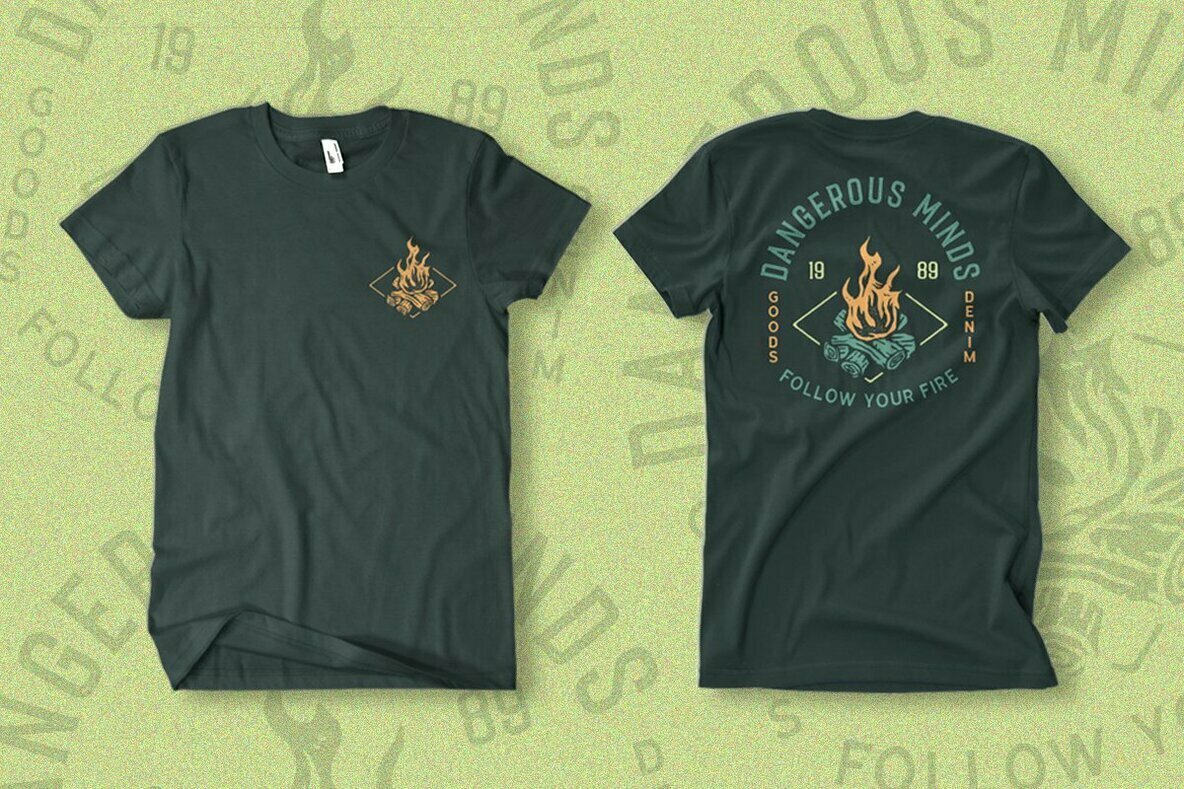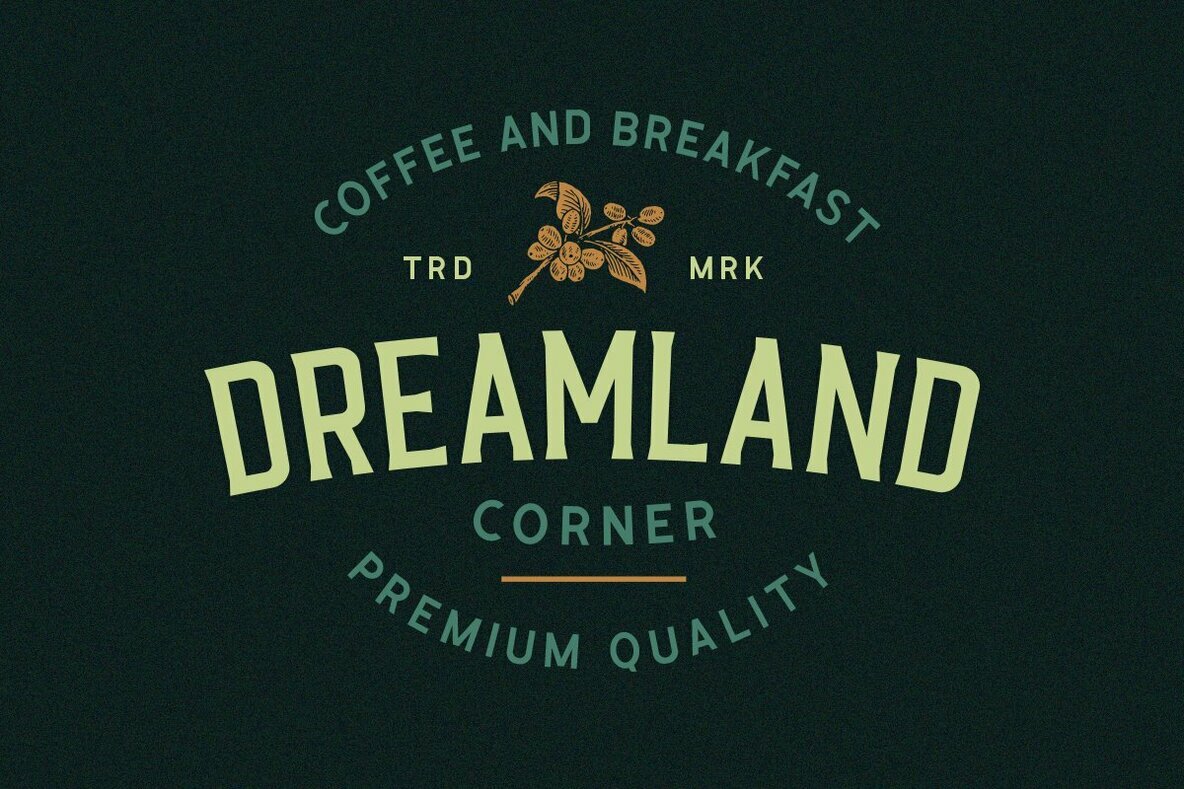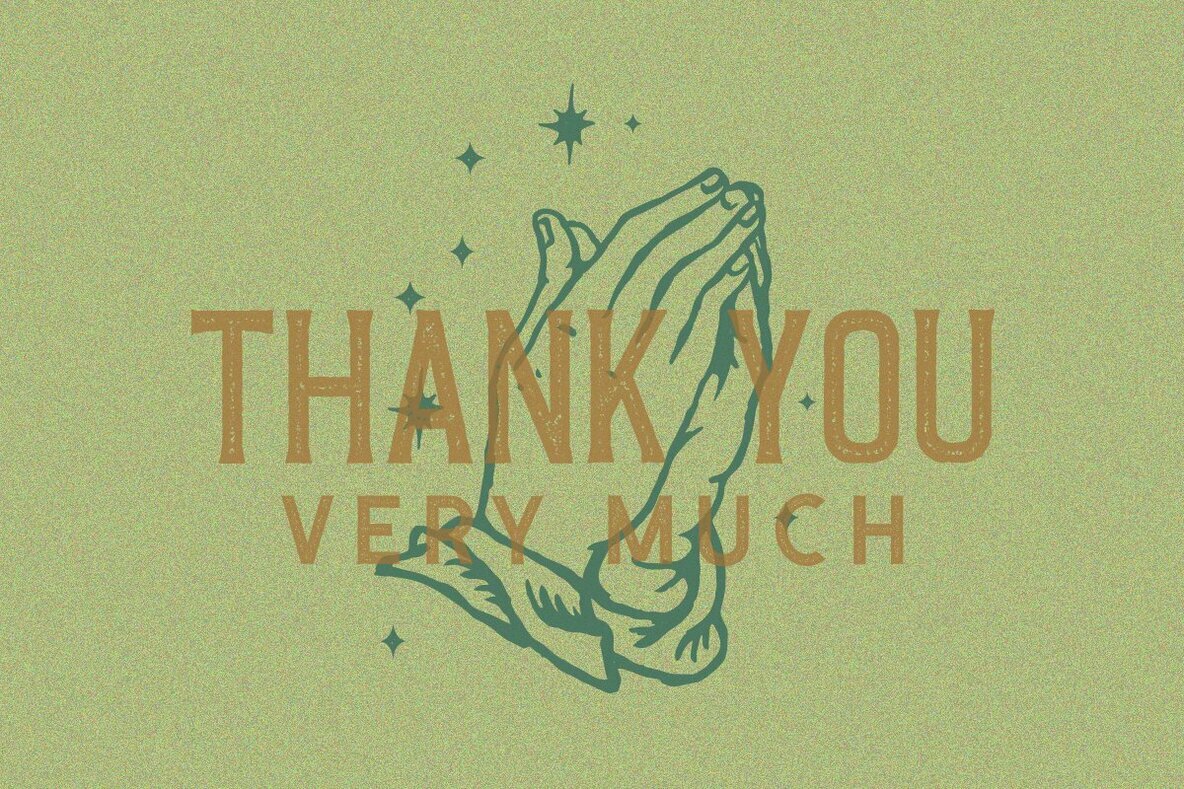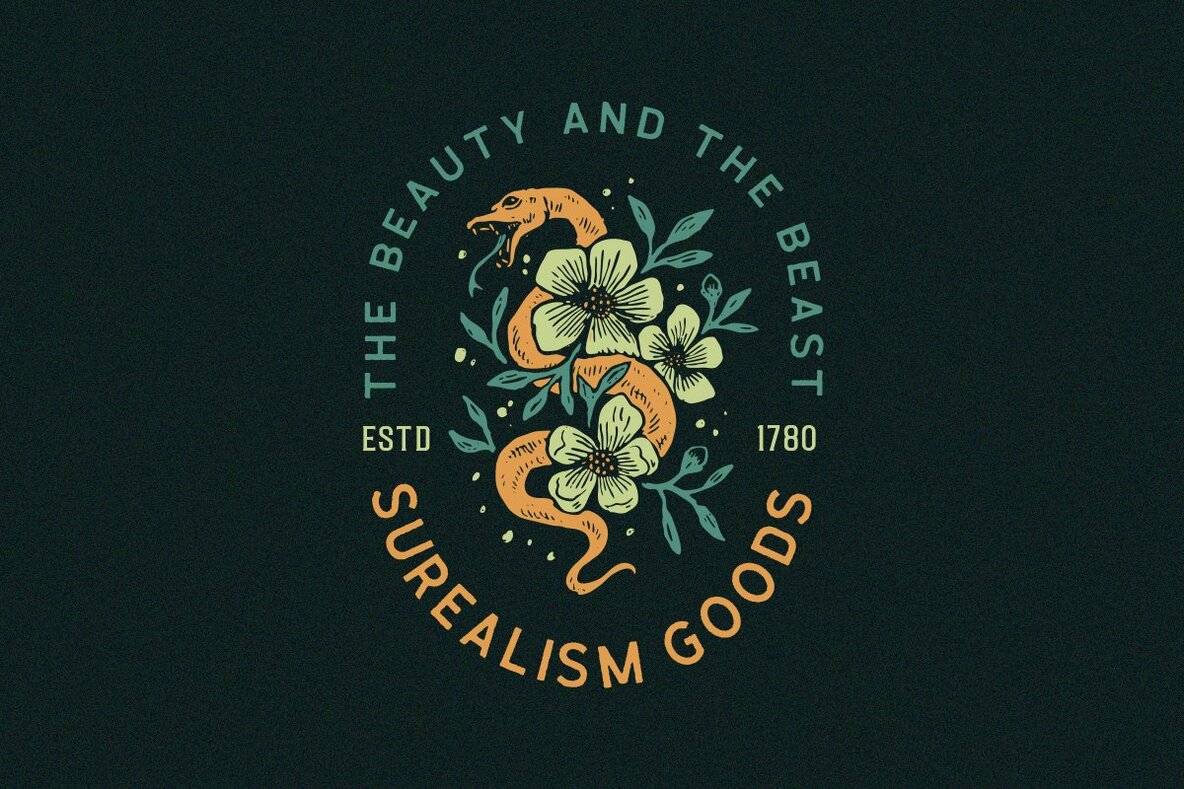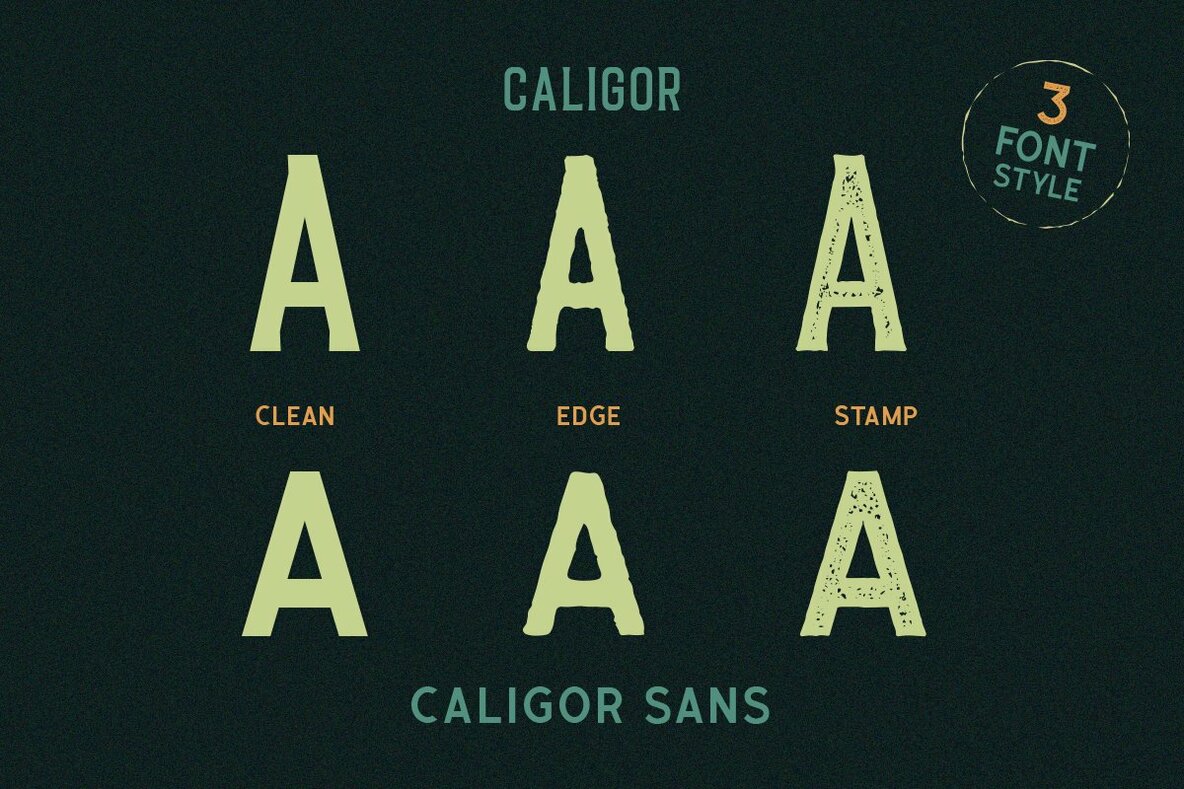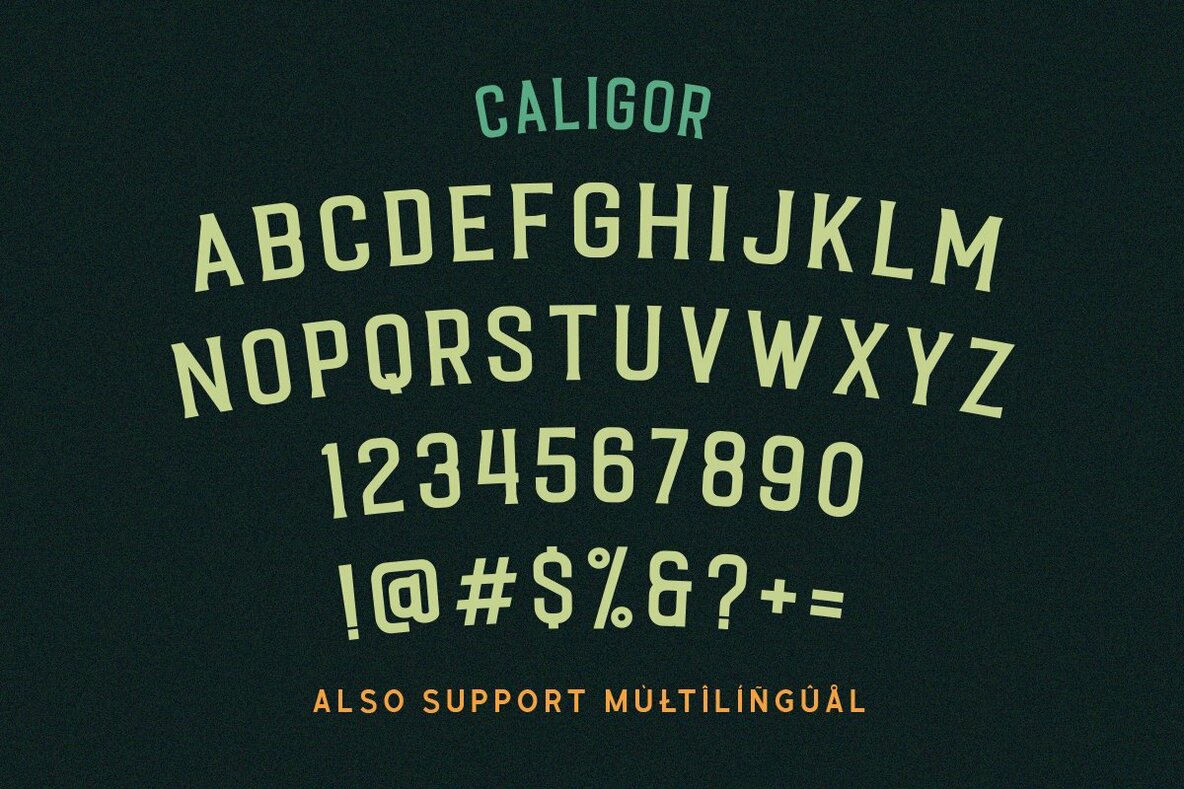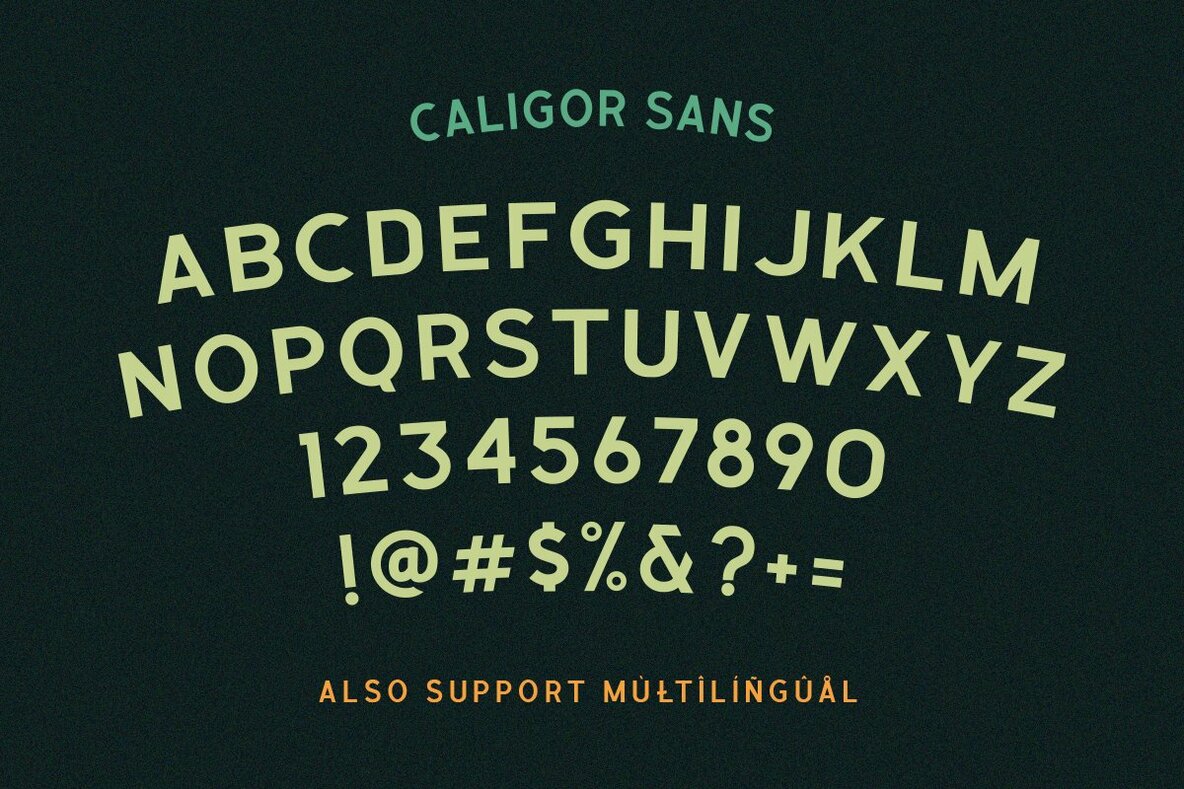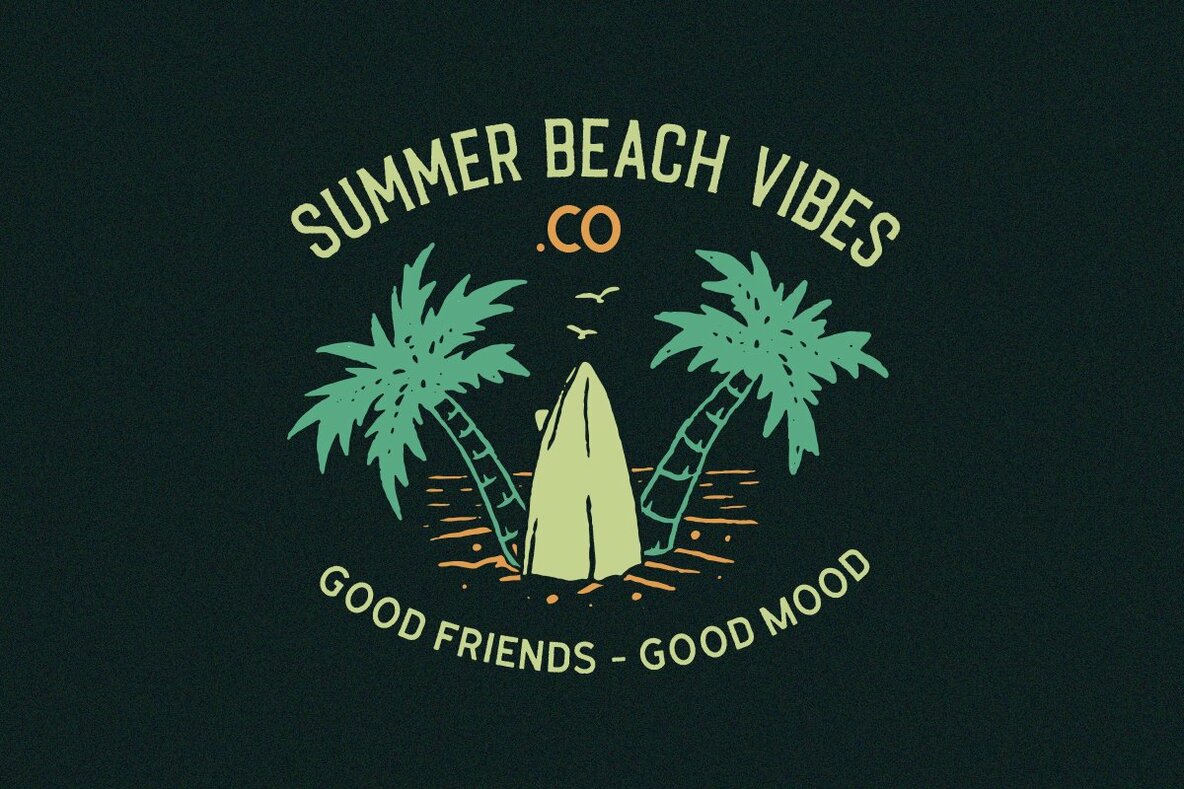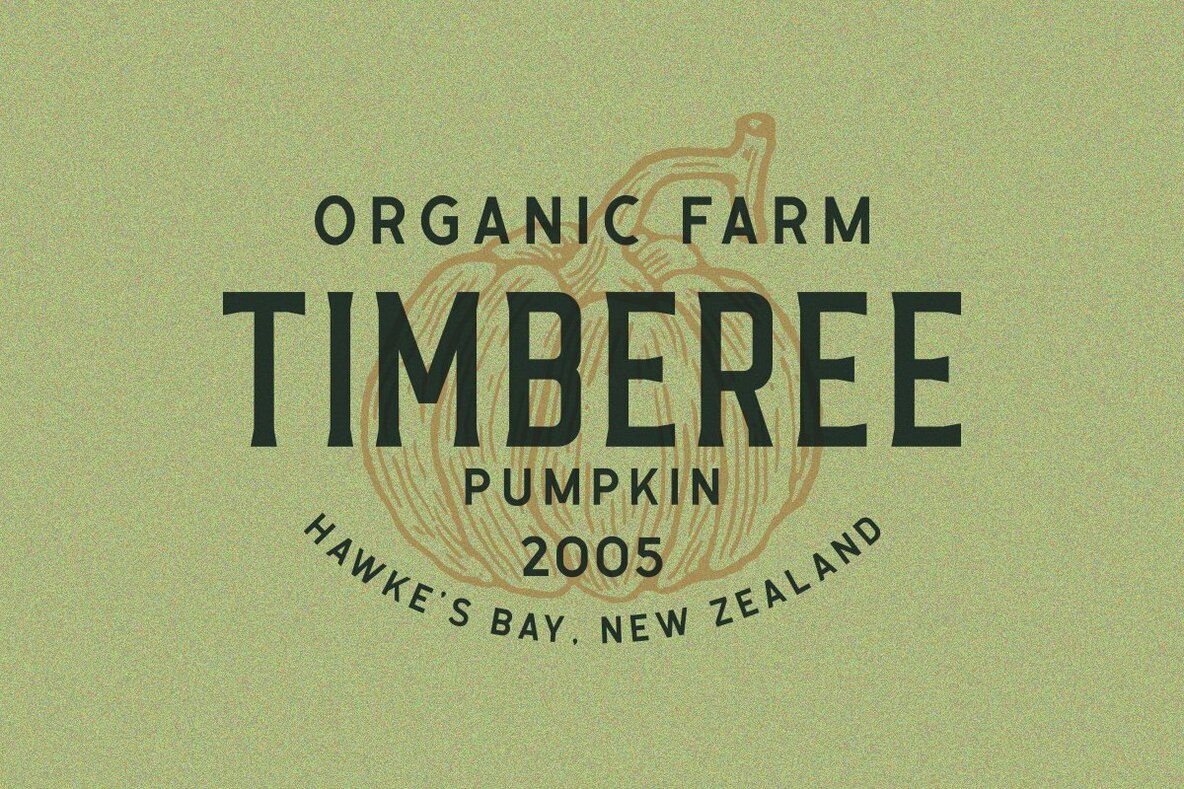
Caligor Font
Caligor, crafted by Letterhend Studio, is a versatile display typeface perfect for a myriad of design applications. Ideal for headlines, logos, apparel, invitations, branding, packaging, and advertising, it provides a comprehensive typographic solution. With its wide range of characters and stylistic elements, Caligor ensures your designs are both visually appealing and highly functional. Features: Caligor's design includes support for several foreign languages, making it a go-to choice for international projects. Explore its dynamic and comprehensive feature set to enhance your design capabilities and bring your creative projects to life.Caligor: A Display Typeface Family for Diverse Applications